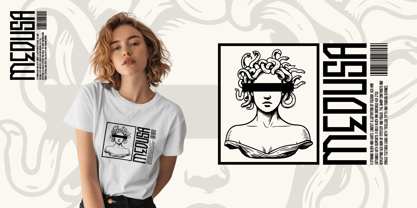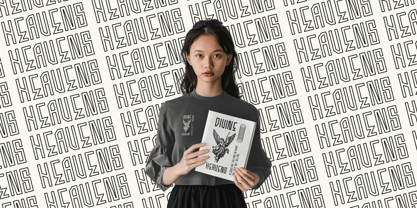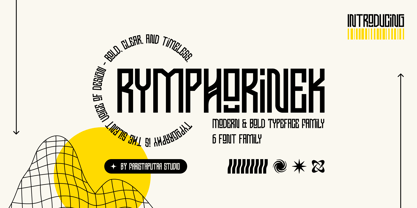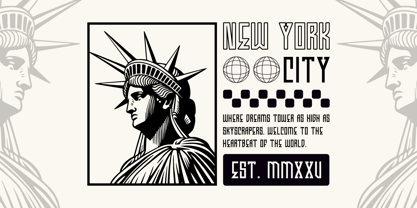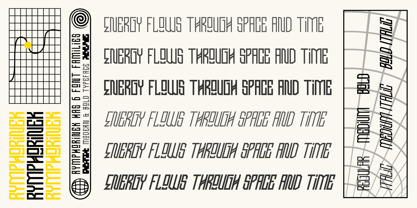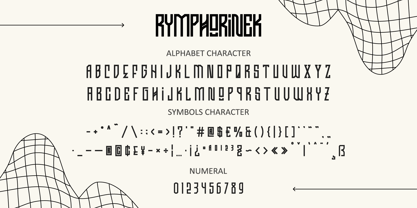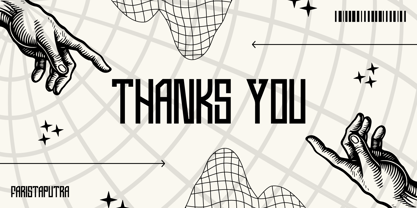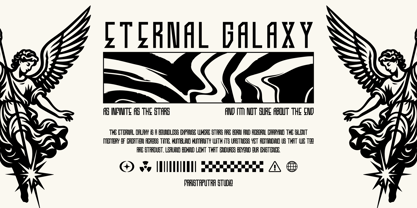
FA Rymphorinek
by Faristaputra
The FA Rymphorinek Font Family was designed by Frederik Aristaputra and published by Faristaputra. FA Rymphorinek contains 6 styles and family package options.
Rymphorinek is a contemporary and striking typeface family that embodies a strong, clear, and timeless character. Its design features geometric and experimental shapes, offering a futuristic yet highly functional aesthetic. This typeface is ideal for various applications, including branding, posters, music covers, editorial headlines, and digital designs that seek to make a bold statement. With six versatile styles available, Rymphorinek ensures flexibility and consistency across a diverse array of creative projects, making it a perfect choice for designers looking to elevate their work.
Designers: Frederik Aristaputra
Publisher: Faristaputra
Foundry: Faristaputra
Design Owner: Faristaputra